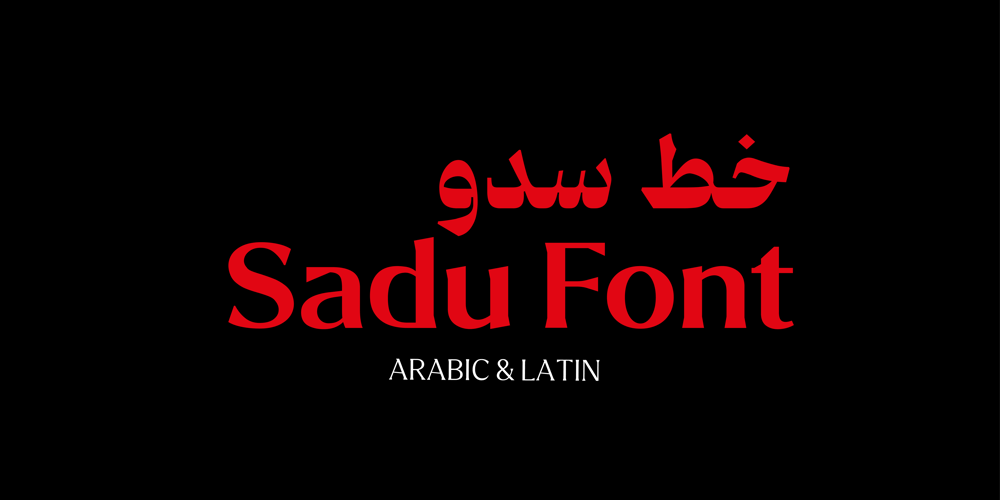
MF Sadu Font Family was designed by Younes Alaboudi and published by MhrfType. MF Sadu contains 6 styles and family package options. Sado is a traditional, modern typeface that create a truly captivating visual experience. with a family of 6 weights, it supports languages that use the Arabic script, such as Persian and Urdu, as well as the Latin alphabet.Sado opens up a world of creative possibilities, inviting designers to explore new horizons and create designs that leave a lasting impression.